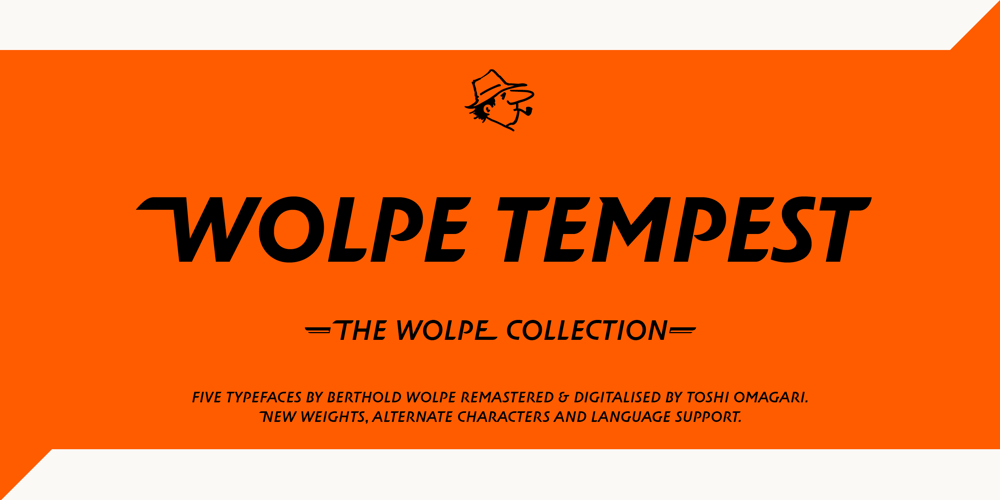
Wolpe Tempest Font Family was designed by Berthold Wolpe, Toshi Omagari and published by Monotype. Wolpe Tempest contains 3 styles and family package options. “It looks like it could have been designed last year,” says Toshi Omagari, the lead designer for The Wolpe Collection, about the original Tempest typeface. For Wolpe Tempest™, Omagari drew three weights and additional characters with flourishes that add more energy and movement to the original design. The new designs can take on just about any online or offline project that calls for typography that’s dynamic, flowing and powerful – everything from game branding to billboard sized posters. Available as set of fonts that support most Western European and many Eastern European languages, Wolpe Tempest is also one of the five typeface designs in The Wolpe Collection.